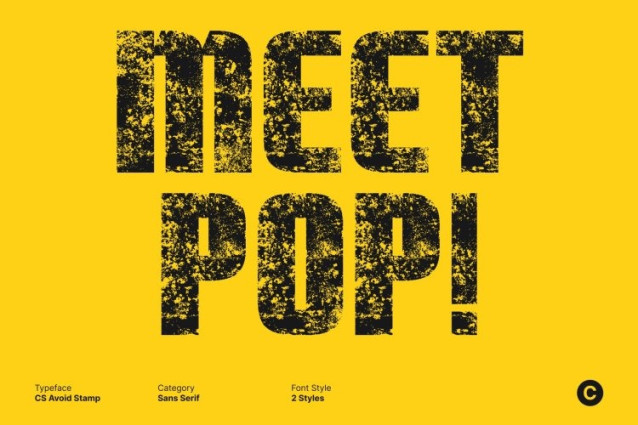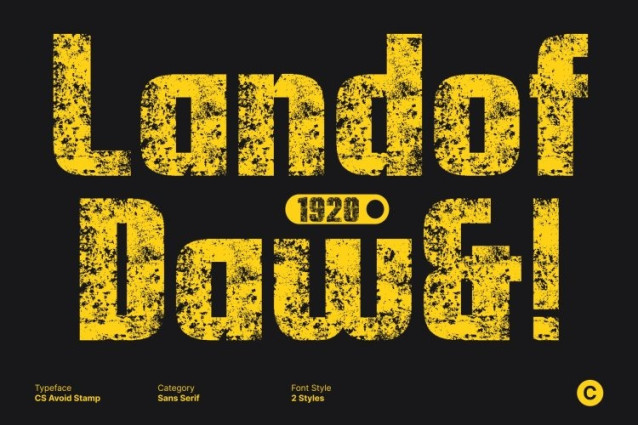
CS Avoid Stamp Font
CS Avoid Stamp Font This is a modern condensed sans serif font designed to deliver maximum impact in minimal space. Built with narrow proportions and solid structure, this font communicates strength, precision, and efficiency. The added stamp texture introduces a subtle vintage and industrial character, giving the font a raw, tactile feel while preserving its clean, modern foundation.
Maximum Presence in Tight Layouts
Engineered for space-conscious designs, excels in headlines, banners, and layouts that demand clarity without sacrificing boldness. Its condensed form allows more characters to fit into limited areas, while the stamped effect adds visual interest and personality, making messages feel assertive and expressive even in compact compositions.
Clean Geometry with Bold, Textured Readability
The font balances clean geometric lines with confident weight and a distressed stamp finish. Sturdy strokes ensure strong legibility from a distance, while the textured details prevent the design from feeling flat or overly minimal. This combination creates a bold, eye-catching aesthetic that remains controlled and professional.
Ideal for Modern, Urban, and Industrial Design
Perfect for branding, posters, packaging, editorial headlines, advertising, and digital visuals, delivers a confident voice with character. Its fusion of modern condensed geometry and vintage stamp texture makes it especially effective for urban branding, industrial themes, and contemporary visual identities that demand efficiency with attitude.